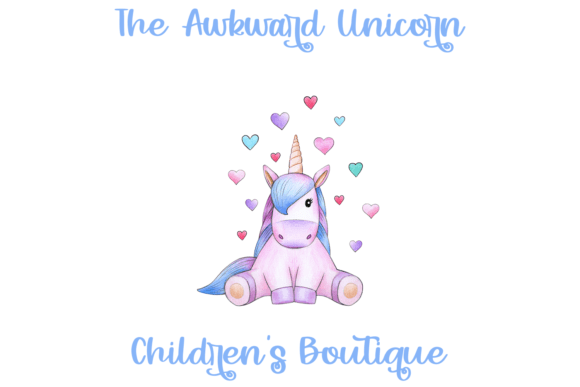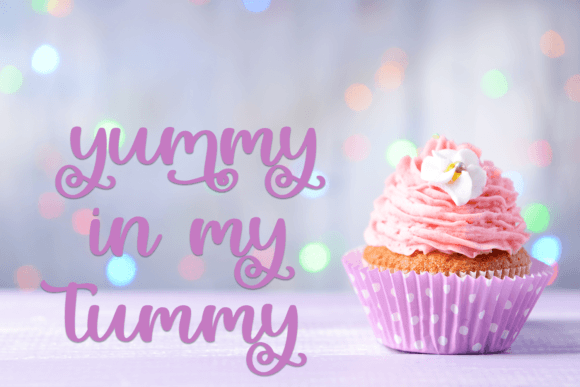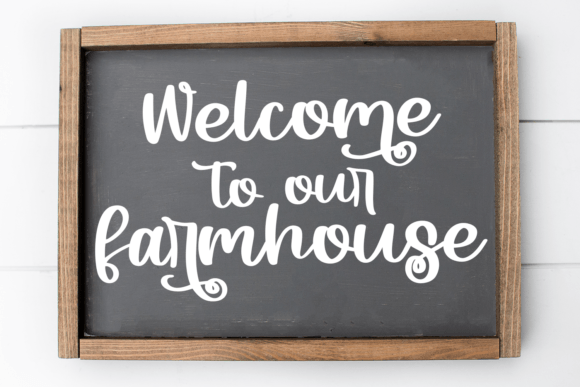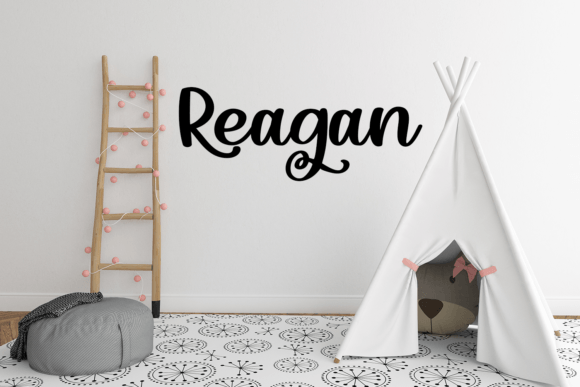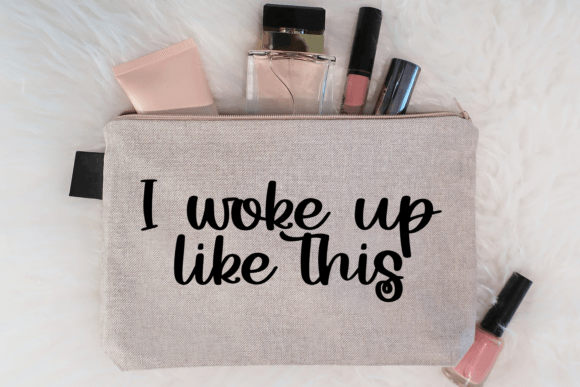
Introduction to Riverway Font
As you sit down at your desk, surrounded by scraps of paper, abandoned coffee cups, and an endless stream of creative ideas, you know that the perfect design can bring a project to life. The struggle is real, but the reward is worth it – a well-crafted design that speaks to your audience and leaves a lasting impression. Today, we’re excited to introduce you to a game-changing design resource that will elevate your creative projects: the Riverway Font.
This quirky handcrafted typeface is a breath of fresh air in the world of digital design. Its unique character and high-quality lines make it the perfect addition to any creative project, from digital planners and website designs to motivational quote graphics and print materials. With a transparent background and free download available, you can bring the Riverway Font into your workflow and experience the difference for yourself.
Key Features of Riverway Font
- High-quality design resource suitable for creative projects, including logos, branding, and advertising materials.
- Resolution-independent, making it ideal for use in various sizes and resolutions without compromising on quality.
- Designed with a modern and elegant aesthetic, Riverway Font is perfect for designers seeking a unique and sophisticated look for their creative projects.
- Includes a range of characters and glyphs, making it suitable for use in a variety of languages and applications.
Honest Review: Riverway Font
As a designer, I’m always on the lookout for high-quality design resources to elevate my creative projects. The Riverway Font has been a great addition to my toolkit, and I’m excited to share my honest review with you.
- Beautifully crafted letters and glyphs that add a touch of elegance to any design.
- High-quality font that’s perfect for use in logos, typography, and other creative projects.
- Transparency is not required in this font as it comes with a solid background, however, it does work well with transparent backgrounds.
- The Riverway Font may not be suitable for use in very small text sizes, as the letters can become blurry.
- Some users may find the font to be a bit too ornate for certain design projects.
Overall, I’m very impressed with the Riverway Font. Its high quality and versatility make it an excellent addition to any designer’s toolkit. Whether you’re working on a logo, typography project, or other creative endeavor, this font is sure to deliver. I highly recommend giving it a try!
How to Use Riverway Font
Tips for Getting the Most Out of Riverway Font
Use Riverway Font as a design resource for your high-quality creative projects. With its transparent background, you can easily overlay it on top of images or other design elements. Experiment with different font sizes and colors to add visual interest to your designs.
Use Riverway Font for a variety of creative projects, such as:
• Social media graphics
• Brochures and flyers
• Business cards and letterheads
• Infographics and data visualizations
Is the Riverway Font suitable for use with a transparent background?
Yes, the Riverway Font is designed to work well with a transparent background. Its high-quality design and crisp lines make it perfect for use in applications where a transparent background is required, such as in logo design or graphic design projects.